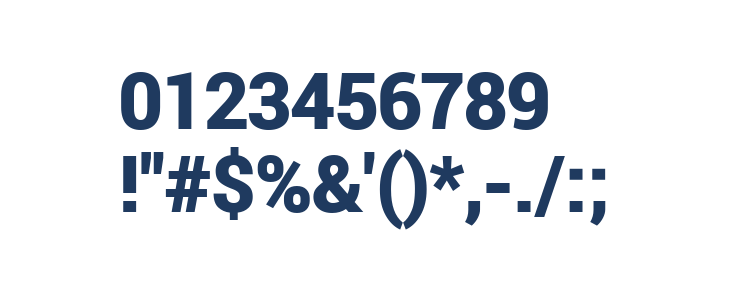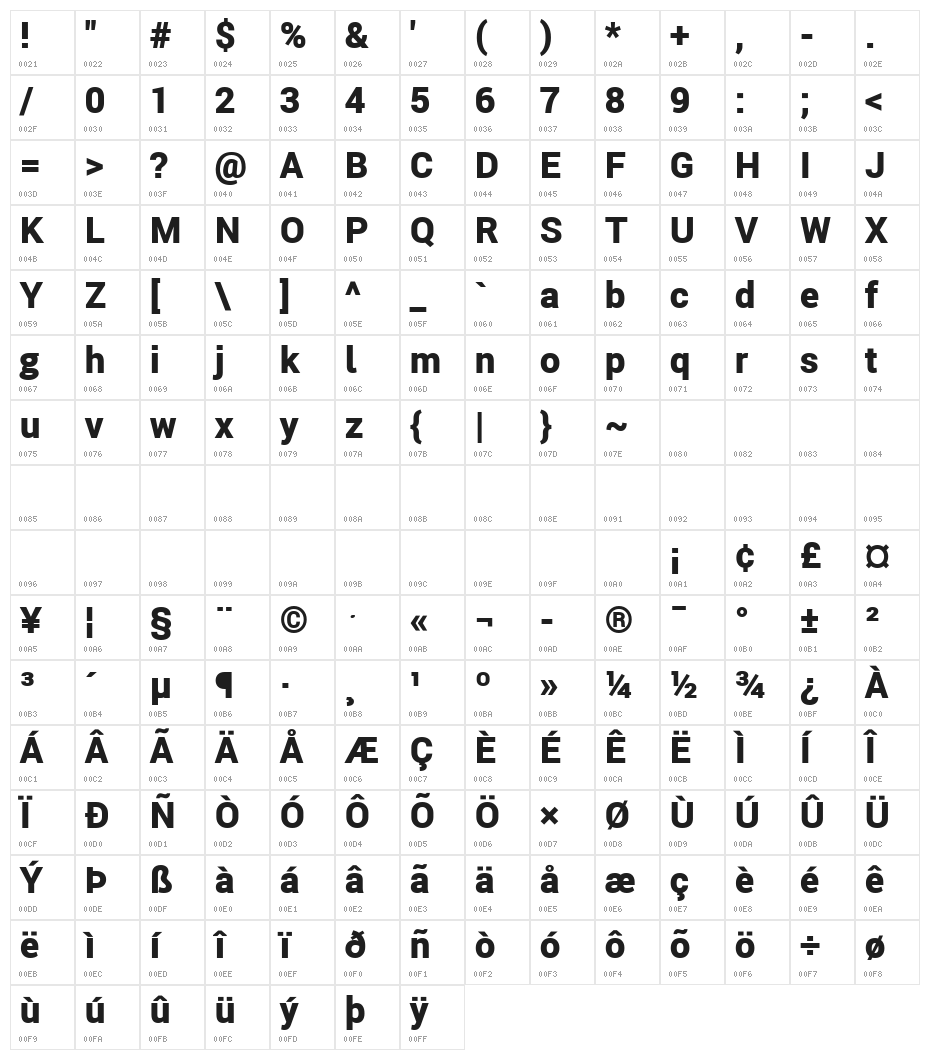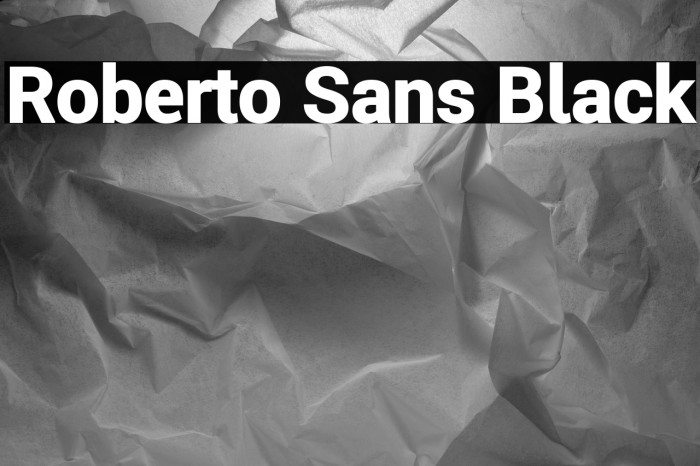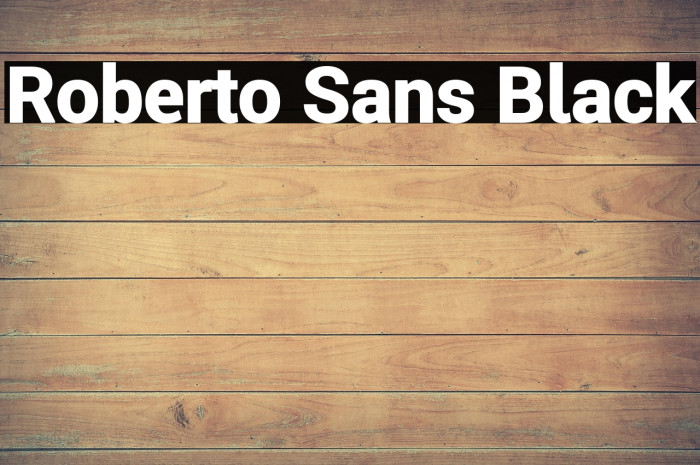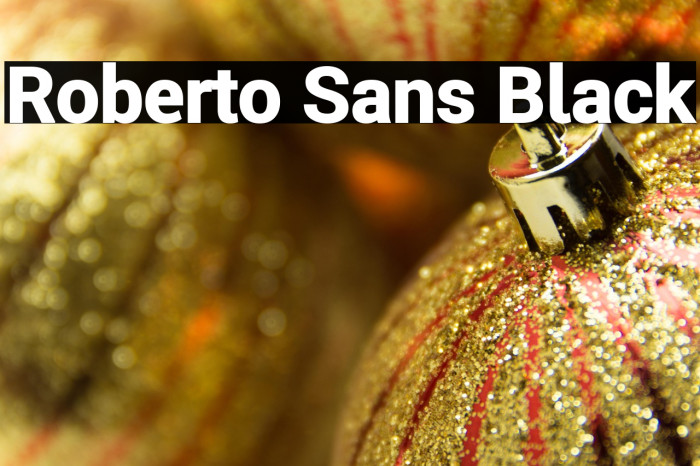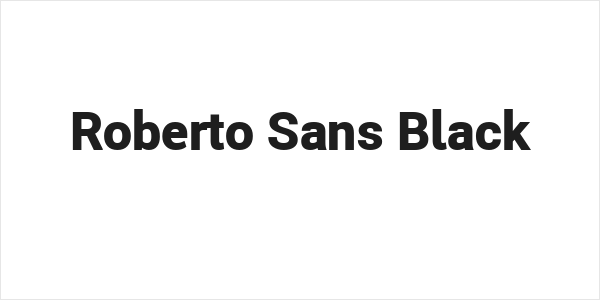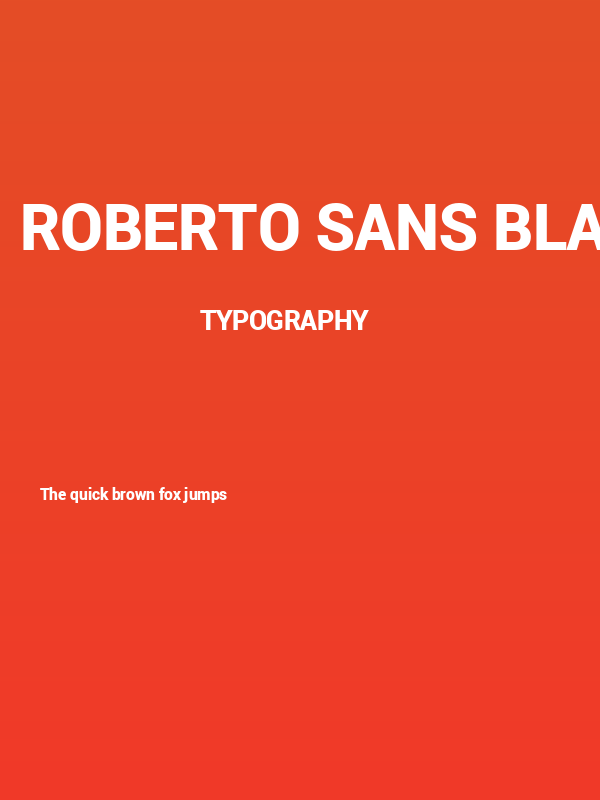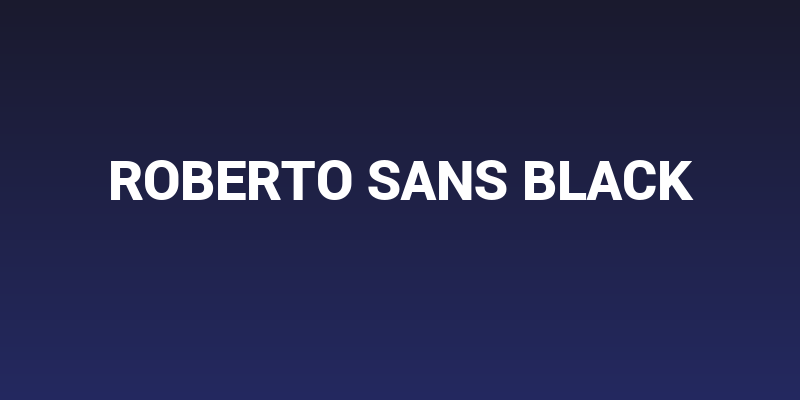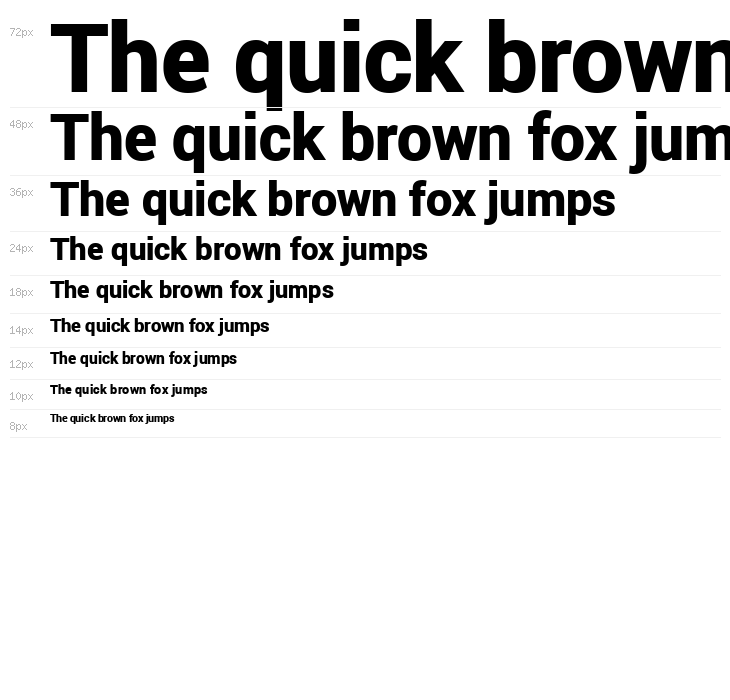
Roberto Sans Black Font
Roberto Sans Black Description
This font features a bold and robust sans-serif style, characterized by its strong geometric shapes and clean lines. The uppercase and lowercase letters maintain a consistent width, providing a uniform appearance. The numerals are clear and easily distinguishable, making them suitable for various applications. Special characters are well-defined, enhancing the font's versatility. The overall design is modern and professional, making it ideal for contemporary projects that require a strong visual impact.
| Proposed Projects | Ideal for branding, advertising, headlines, and digital media where a bold statement is needed. |